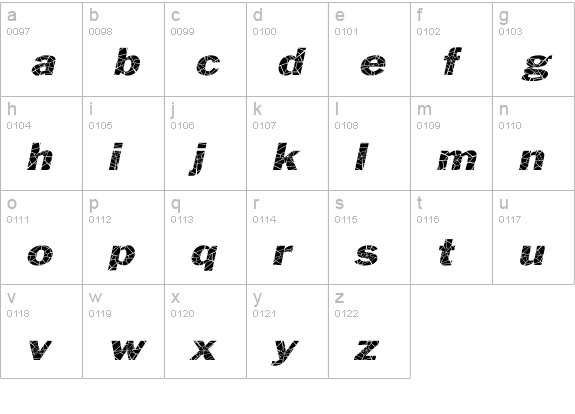
Philadelphia Cracked-Extended Italic is a distinctive, extended-width, italic variant in the Philadelphia typeface family \xE2\x80\x94 well suited to design and typography projects.
Philadelphia Cracked-Extended Italic is a stunning and bold font that exudes a sense of edginess and creativity. Its cracked design adds a unique and eye-catching element to any project, making it perfect for those seeking to make a statement. This font combines the elegance of italic lettering with the unconventional cracked texture, resulting in a truly captivating and distinct typeface. It effortlessly blends modernity with a hint of vintage charm, making it suitable for a wide range of design projects. Whether you are working on a poster, logo, book cover, or any other creative endeavor, Philadelphia Cracked-Extended Italic will undoubtedly make a lasting impression. Its sleek and sophisticated appearance instantly grabs attention and adds a touch of personality to your work. What's even better is that Philadelphia Cracked-Extended Italic is available for free download at FontsMarket.com. This means that you can easily access this exceptional font and incorporate it into your projects without breaking the bank. It's a fantastic opportunity to enhance your designs with a high-quality and visually captivating typeface, all at no cost. With its extended and italicized form, Philadelphia Cracked-Extended Italic offers versatility and flexibility, allowing you to experiment with various design styles. Whether you want to create a bold and striking look or a more subtle and refined aesthetic, this font can adapt to your vision effortlessly. So, if you're looking to make a strong visual impact and add a touch of creativity to your designs, Philadelphia Cracked-Extended Italic is the perfect choice. Download it for free at FontsMarket.com and let your imagination run wild as you explore the endless possibilities this font offers.